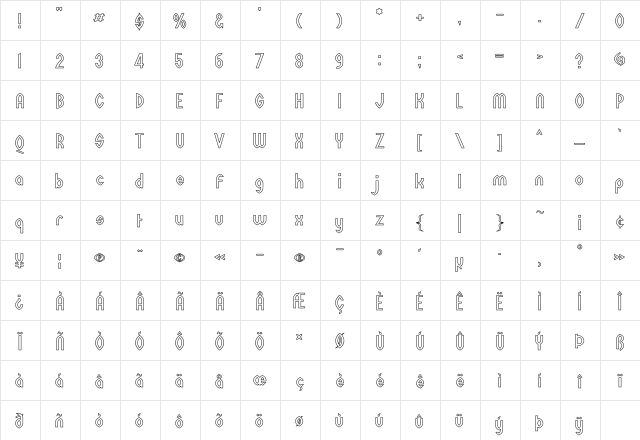
Wazoo Outline Regular
| Designer | Graham Meade |
Design Context for Wazoo Outline Typeface
Wazoo Outline is built around its visual character rather than neutral utility — its distinctive forms are designed to make an impression at display sizes.
Font Pairing: Pair with a clean neutral sans-serif for body copy to let Wazoo Outline's character lead without overwhelming the composition.
Pro Tip: Use Wazoo Outline exclusively at display sizes — it was designed to be seen, not read at length. Let a neutral companion handle body copy.